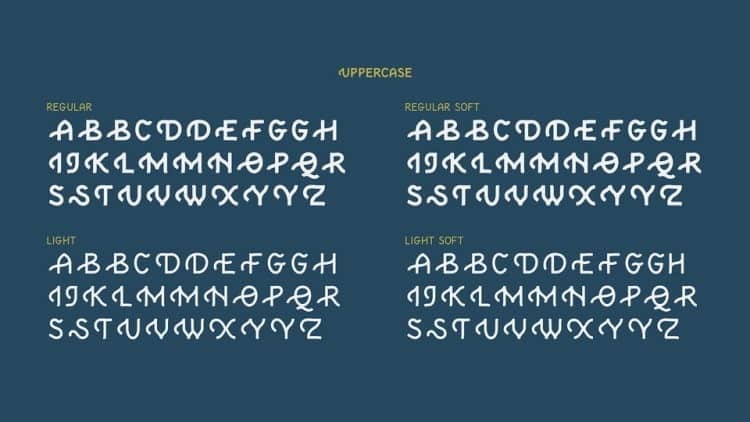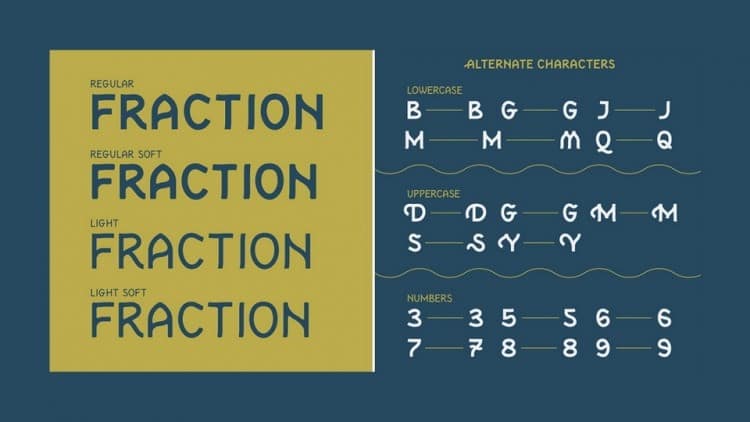
Presque Display Font is a free gorgeous sans-serif display typeface, all caps display font that takes a unique approach to traditional letterforms. Presque pulls inspiration from early 1900s packaging typography when letters often contained curvy, expressive linework and swashes as a way to stand apart from other brands. The Soft style gives the letters an ink bleed quality that is reminiscent of printed vintage typography.